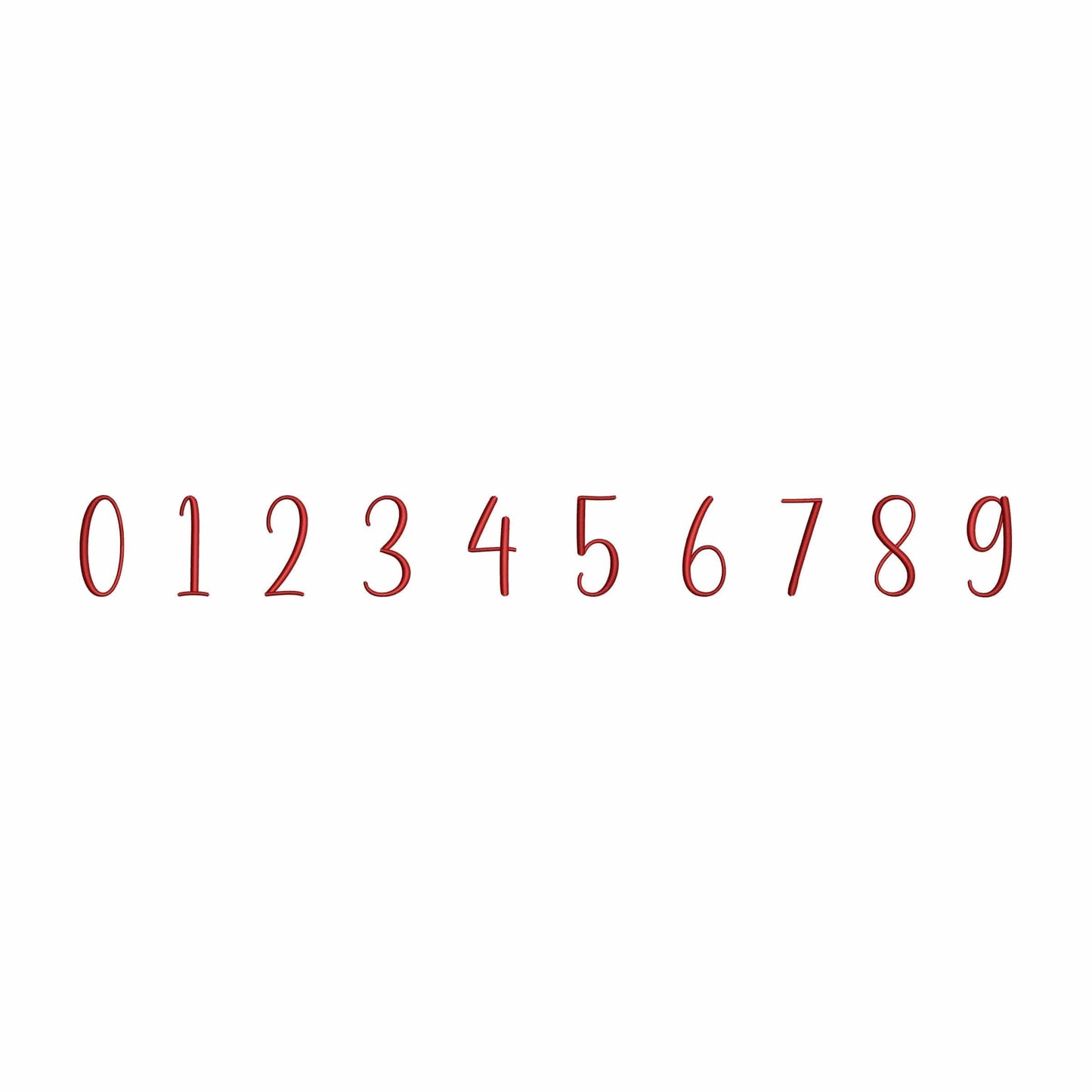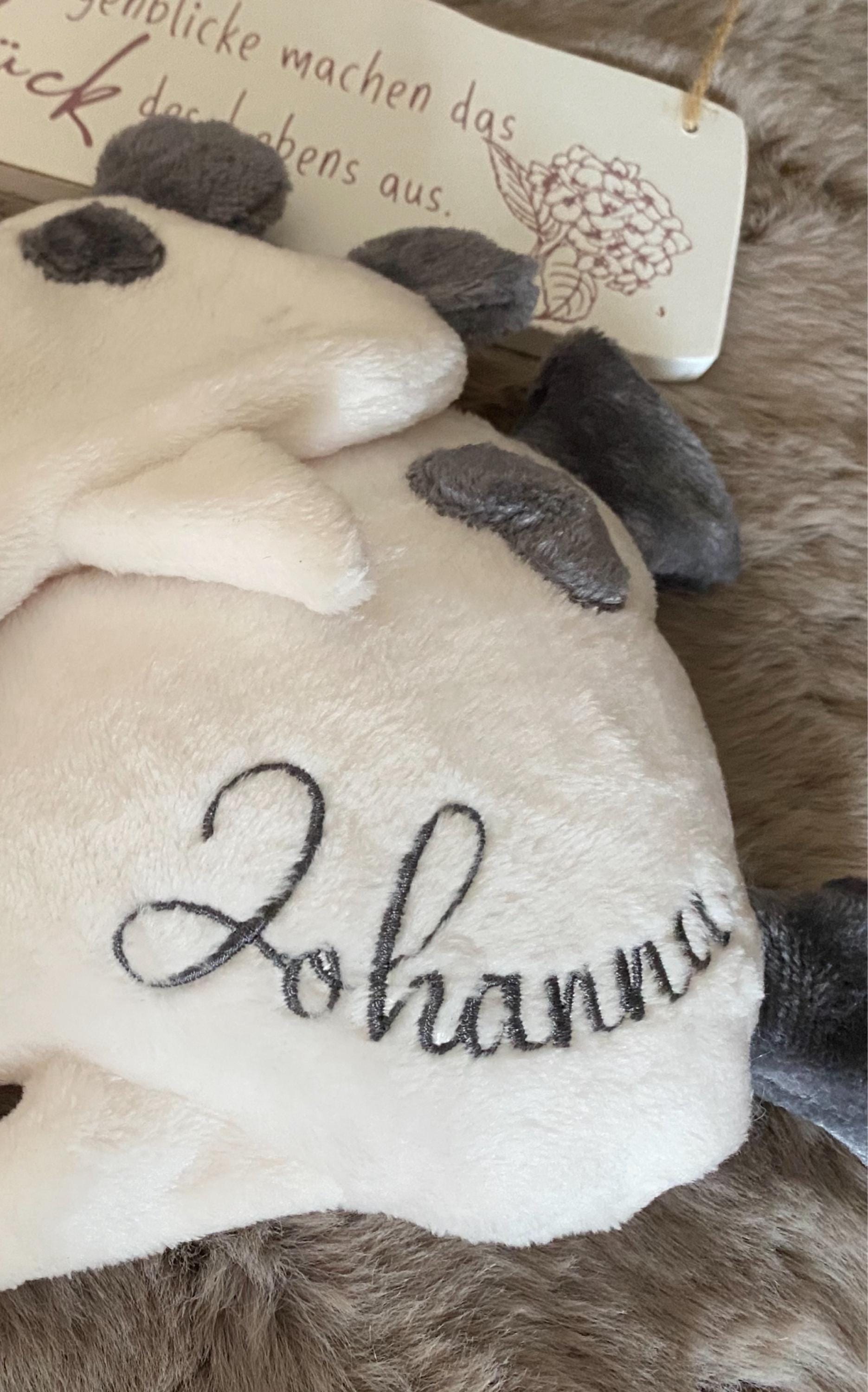
Sophia - Embroidery font
This machine embroidery font works well for monograms, shirts, towels, keepsakes, and stylish personalized embroidery.
A strong choice for makers who want cursive lettering with a clean modern feminine feel.